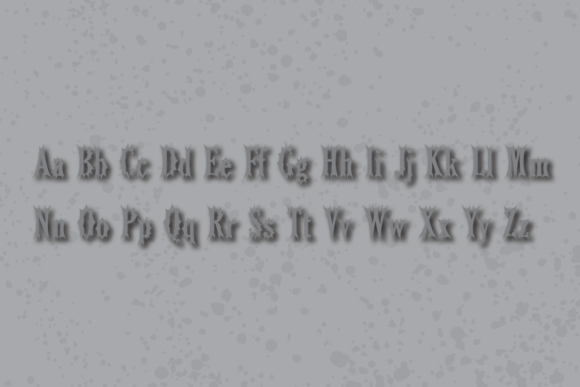
Introducing Chilly Font: The Fun and Unique Decorative Font for Your Creative Projects
Are you tired of using the same old fonts for your creative projects? Look no further! Chilly Font is here to add a touch of fun and uniqueness to your designs. This attractive font is perfect for a wide range of projects, from sublimation and greeting cards to advertisements, birthday parties, quotes, titles, brand names, book covers, and more. With Chilly Font, your creative options are endless!
What Makes Chilly Font Special?
Chilly Font is a decorative font that stands out from the rest. Its unique and attractive design makes it perfect for adding a personal touch to your projects. Whether you’re a designer, crafter, or DIY enthusiast, Chilly Font is sure to inspire your creativity. With its fun and playful vibe, this font is ideal for projects that require a bit of whimsy and flair.
Uses for Chilly Font
Chilly Font is a versatile font that can be used for a wide range of projects, including:
- Sublimation: Add a touch of personality to your sublimation designs with Chilly Font. Perfect for creating custom t-shirts, mugs, and more.
- Greeting Cards: Make your greeting cards stand out with Chilly Font. Ideal for birthdays, holidays, and special occasions.
- Advertisements: Grab attention with Chilly Font. Use it to create eye-catching ads for social media, flyers, and more.
- Birthday Parties: Add a touch of fun to your party invitations and decorations with Chilly Font.
- Quotes and Titles: Use Chilly Font to add emphasis to your favorite quotes and titles. Perfect for social media posts, blogs, and more.
- Brand Names: Create a unique and memorable brand identity with Chilly Font.
- Book Covers: Make your book cover stand out with Chilly Font. Ideal for fiction, non-fiction, and children’s books.
Why Choose Chilly Font?
So why choose Chilly Font for your creative projects? Here are just a few reasons:
- Unique and Attractive: Chilly Font is a one-of-a-kind font that will add a touch of personality to your designs.
- Versatile: Use Chilly Font for a wide range of projects, from sublimation to book covers.
- High-Quality: Chilly Font is a high-quality font that is designed to produce crisp and clear results.
Tips for Using Chilly Font
Here are a few tips for getting the most out of Chilly Font:
- Experiment with Colors: Chilly Font looks great in a variety of colors. Experiment with different colors to find the perfect look for your project.
- Play with Sizes: Chilly Font can be used at a variety of sizes. Experiment with different sizes to find the perfect fit for your project.
- Combine with Other Fonts: Chilly Font pairs well with other fonts. Experiment with combining it with other fonts to create a unique look.
| Font Name | Chilly Font |
| Author | Laura’s Imperfections |
Chilly Font is a fun and unique decorative font that is perfect for a wide range of creative projects. With its attractive design and versatile uses, it’s a great addition to any designer’s or crafter’s toolkit. Whether you’re looking to add a touch of personality to your sublimation designs, create eye-catching ads, or make your book cover stand out, Chilly Font is the perfect choice. So why wait? Download Chilly Font today and start adding a touch of fun and whimsy to your creative projects!